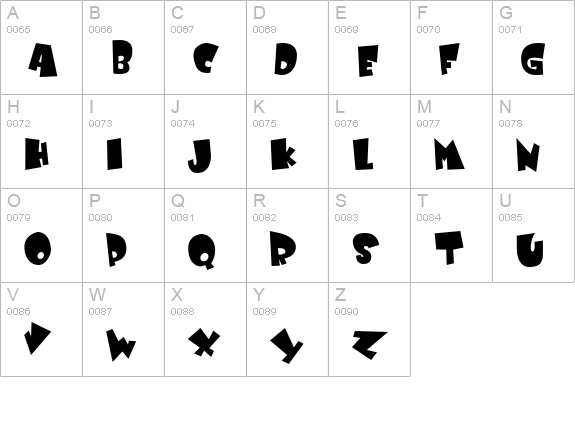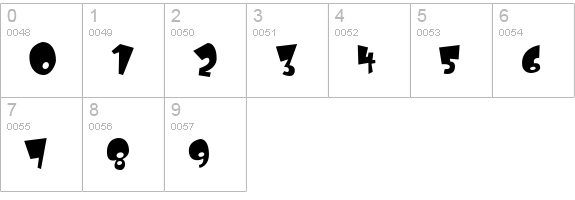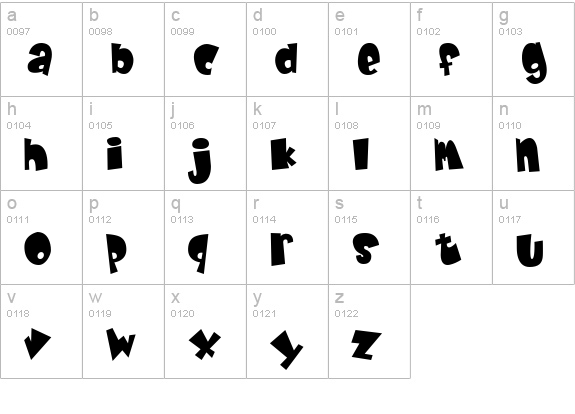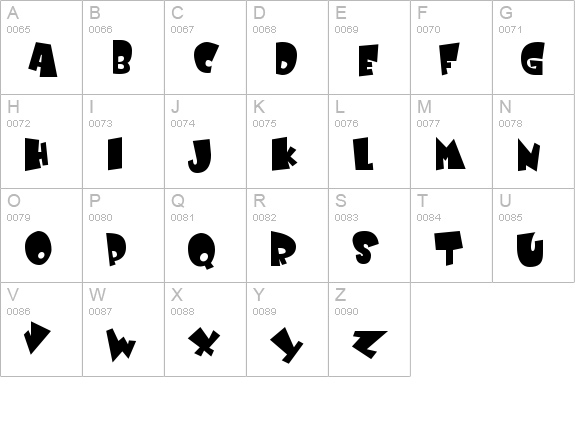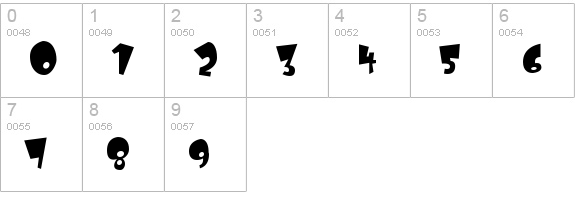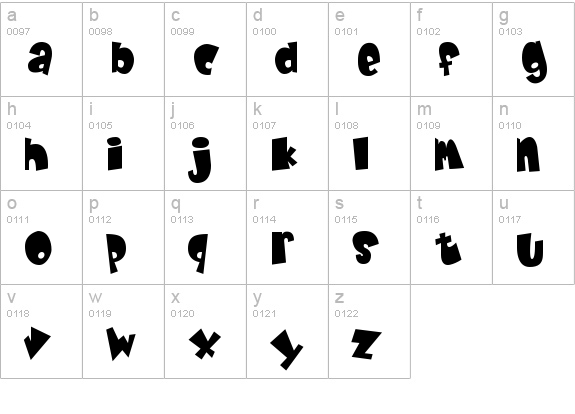
Introducing Baby Kruffy, a delightful and whimsical font that is perfect for adding a touch of playfulness to any project. This font is specifically designed to capture the innocent charm of childhood, making it ideal for creating invitations, greeting cards, children's books, and so much more. With its rounded edges and slightly irregular letterforms, Baby Kruffy exudes a sense of warmth and friendliness. Each character has a unique personality, adding a fun and lighthearted feel to your designs. Whether you're designing for a baby shower, a birthday party, or simply want to inject some joy into your creations, Baby Kruffy is the perfect choice. The best part? Baby Kruffy is available for free! Yes, you read that right. This delightful font can be freely downloaded from FontsMarket.com. So, you can start using it in your projects without having to worry about any additional costs. When it comes to versatility, Baby Kruffy has you covered. It works seamlessly in both print and digital mediums, ensuring that your designs look amazing no matter how they are presented. It is also compatible with various design software, making it easy to incorporate into your existing workflow. So why wait? Download Baby Kruffy today and let your imagination run wild. With its playful charm and free availability, this font is sure to become a favorite among designers, parents, and anyone who wants to add a touch of whimsy to their projects. Don't miss out on this fantastic opportunity to bring a smile to your audience's faces with Baby Kruffy.